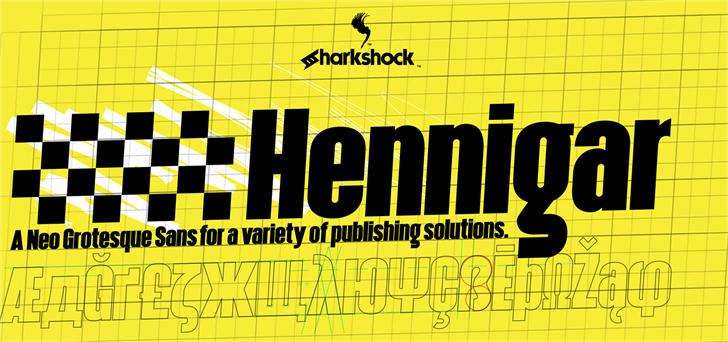
Free Hennigar Font
Take a look at this stunning free hennigar font. Font Space has created this amazing and beautiful typeface. This is absolutely beautiful font so you can easily make world-class designs.